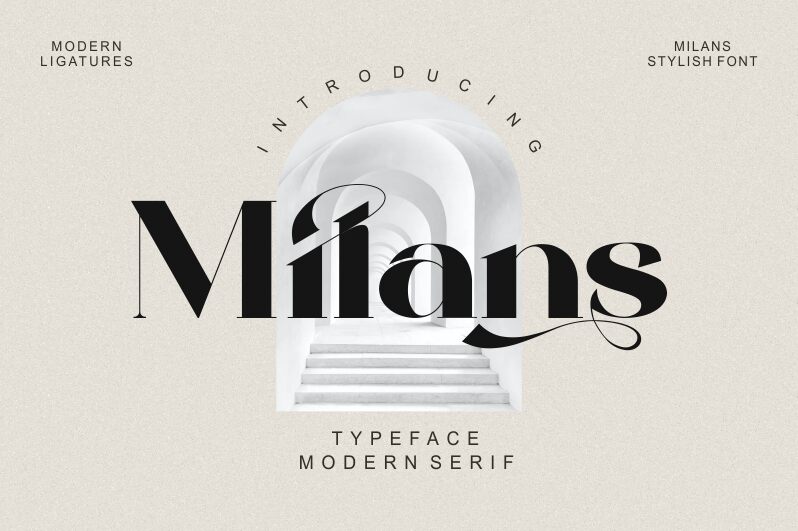
Milans
Milans is a modern serif font designed by Penatic_studio that combines classic elegance with contemporary style. Its bold weight and semi-expanded width create a powerful and attention-grabbing presence, making it perfect for branding, advertising, and editorial projects. Milans' sophisticated look and feel make it ideal for fashion publications, luxury brands, high-end product packaging, and more. With its clean lines and refined details, this font will add a touch of refinement to any design project. Elevate your brand with Milans – the perfect choice for modern sophistication.